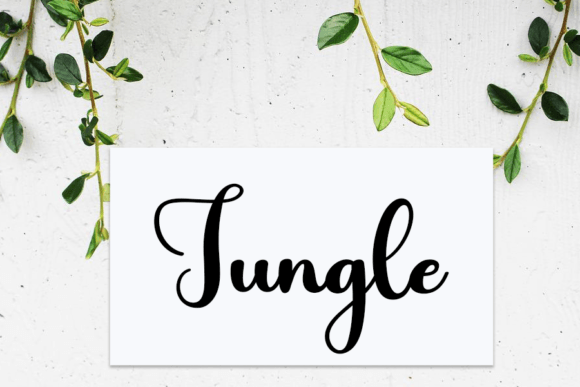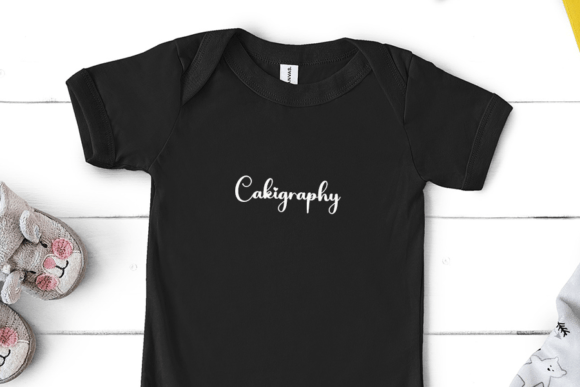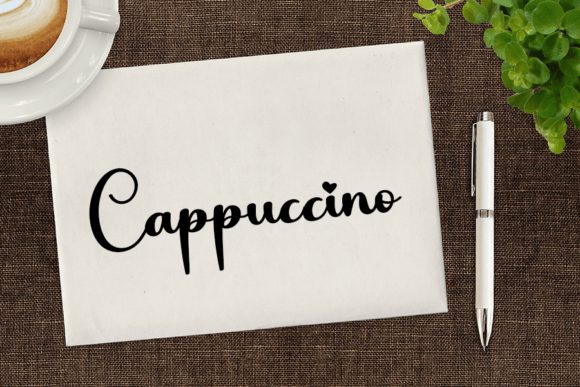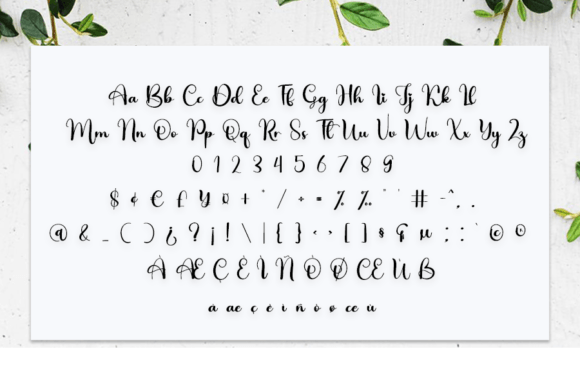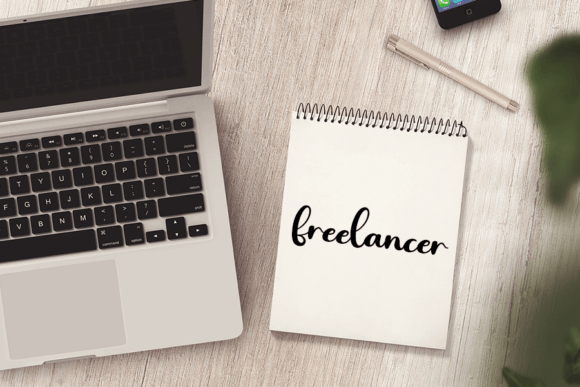
The Art of Elegant Typography: Caligraphy Font
As designers, we’ve all been there – staring at a blank page, trying to come up with the perfect font to match our creative vision. It’s like searching for the perfect match for a wedding proposal, but instead of a ring, it’s a typeface that will make or break the entire design. And then, it hits you – the perfect combination of style and sophistication that screams “elegance” and “femininity”. This is where Caligraphy Font comes in, a beautiful and versatile typeface that will elevate your designs to new heights.
Whether you’re a seasoned designer or just starting out, Caligraphy Font is a valuable addition to your toolkit. Its delicate curves and subtle flourishes make it perfect for all types of headlines, from wedding invitations to social media posts. With Caligraphy Font, you’ll be able to add a touch of sophistication and elegance to any design, making it a go-to choice for designers who want to make a lasting impression.
Key Features of Caligraphy Font
- Unique Characteristics: This font features elegant, cursive script with swashes and flourishes, ideal for formal invitations, wedding stationery, and luxury branding
- Kerning and Ligatures: Includes advanced kerning and ligature pairs to ensure smooth text flow and visual harmony
Designer Review: Caligraphy Font
I recently had the chance to work with the Caligraphy Font, and I must say it’s a unique addition to any design project. ✨ One of the things that stood out to me is the elegant and sophisticated feel it brings to any text. The font’s refined lines and subtle flourishes make it perfect for creating a high-end or luxurious atmosphere.
Another advantage of the Caligraphy Font is its versatility. It can be used for a wide range of applications, from fashion and beauty branding to wedding invitations and fine art. ✨ Its classic look also makes it a great choice for creating a sense of tradition and heritage.
- ⚠️ The font can be quite dense, making it difficult to read in smaller sizes or on lower-resolution screens.
- ⚠️ Some characters may not be as well-designed as others, which can lead to inconsistent typography.
Overall, the Caligraphy Font is a great choice for designers looking to add a touch of elegance and sophistication to their work. While it may have some limitations, its unique look and versatility make it a valuable addition to any design project.
Alternatives to Caligraphy Font for Designers
Carolyna Pro is a modern calligraphy font that offers a more elegant and sophisticated look. It is ideal for use in wedding invitations, branding, and other high-end designs where a touch of luxury is desired.
Compared to Caligraphy Font, Carolyna Pro has a more refined and polished appearance, making it a better choice for designs that require a high level of sophistication.
Alex Brush is a beautiful calligraphy font that features a unique, handwritten style. It is perfect for use in designs that require a touch of whimsy and personality, such as children’s books, menus, and other creative projects.
Can I use a Caligraphy Font for body text?
While Caligraphy Fonts can be beautiful and elegant, they may not be the best choice for body text due to their unique characteristics. Caligraphy Fonts often have a more flowing and organic style, which can make them difficult to read at smaller sizes or in large blocks of text. For body text, it’s generally recommended to use a more traditional font with a clear and legible design.